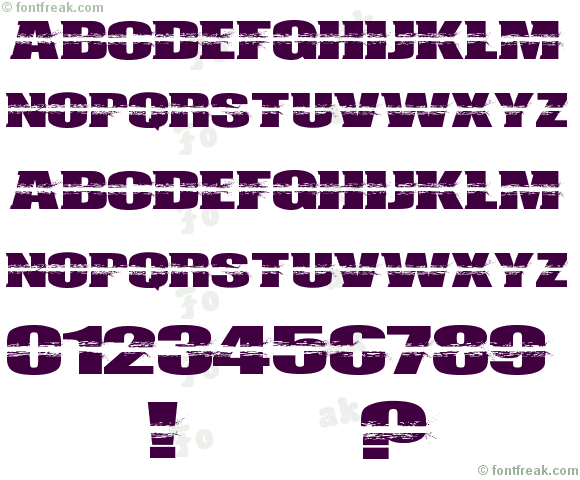
BULLETCAMPUS>
About BULLETCAMPUS>
BULLETCAMPUS> by Maelle.K is a striking display font that captures attention with its bold and distinctive style. This font showcases a unique blend of modern design elements, characterized by strong, thick strokes that provide a sense of impact. The contrast in stroke weight adds a dynamic quality, while the spacing between characters ensures clarity and legibility, making it suitable for various applications. Its edgy aesthetic is complemented by decorative elements that give it a personality that stands out in any context.
The BULLETCAMPUS> font is particularly well-suited for a range of creative projects. It is an excellent choice for promotional materials such as event flyers and posters, where grabbing the viewer’s attention is crucial. Additionally, this font can elevate the design of restaurant menus, offering a contemporary feel that aligns with modern dining experiences. It also works wonderfully for branding initiatives, particularly for businesses targeting a youthful, energetic audience. Furthermore, content creators can utilize BULLETCAMPUS> for social media graphics, ensuring their posts are visually captivating and memorable.
In conclusion, BULLETCAMPUS> font free download offers a unique opportunity for designers seeking a distinctive, impactful typeface. Its combination of bold strokes, modern design, and versatility makes it a standout choice for anyone looking to enhance their visual communications. With BULLETCAMPUS>, your projects will undoubtedly leave a lasting impression.